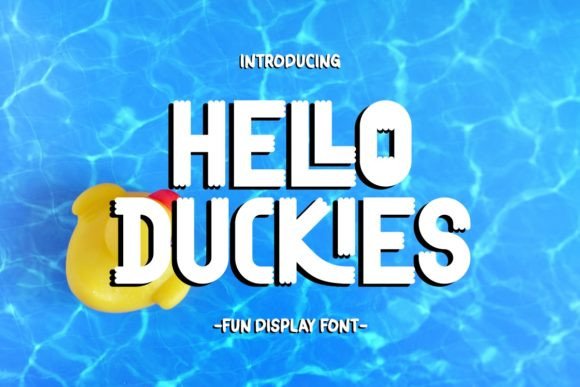
Embark on a typographic adventure with Hello Duckies Font, the display font that sparks joy and ignites imagination. Designed by the creative mind of Pian45, this font is a playful dance of letters, each resembling an adorable rubber ducky. Inspired by the irresistible charm of these bathtime companions, Hello Duckies Font brings a whimsical touch to your designs, transforming words into playful expressions of cheerfulness.
Dive into a world where letters come alive, where each stroke and curve is a testament to the sheer delight of creativity. Hello Duckies Font is not merely a collection of characters; it's a symphony of happiness, a visual celebration of life's lighter moments. Unleash the magic of this font and watch as your designs take on a new life, brimming with charm and an infectious sense of fun.
With Hello Duckies Font, you'll discover a font that perfectly captures the essence of childhood wonder, transporting you back to carefree days of laughter and bathtub adventures. Its unique design adds a personal touch to any project, making it an ideal choice for branding, invitations, social media posts, and anything else that demands a splash of playful elegance.
So, why settle for ordinary fonts when you can immerse yourself in the world of Hello Duckies Font? Let your designs quack with joy, let your words dance with delight, and let your creativity soar to new heights. Embrace the whimsical charm of this font and embark on a typographic journey that's as unique and unforgettable as a rubber ducky in a bathtub symphony.